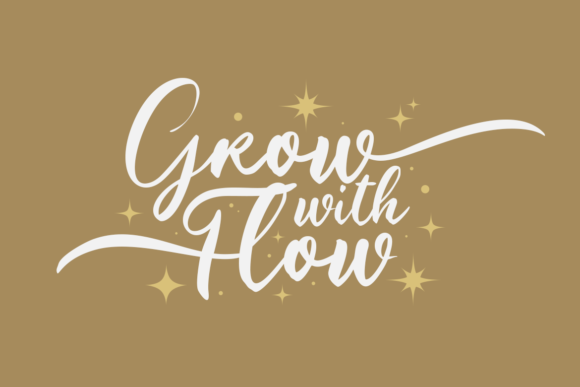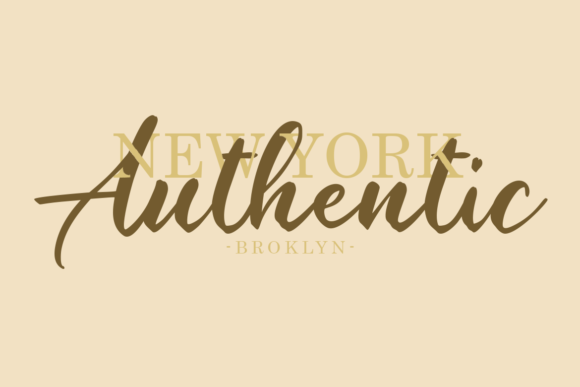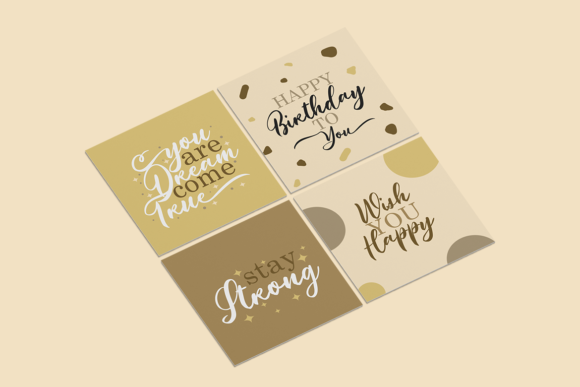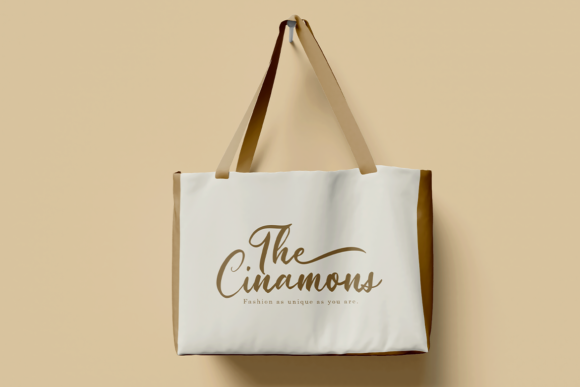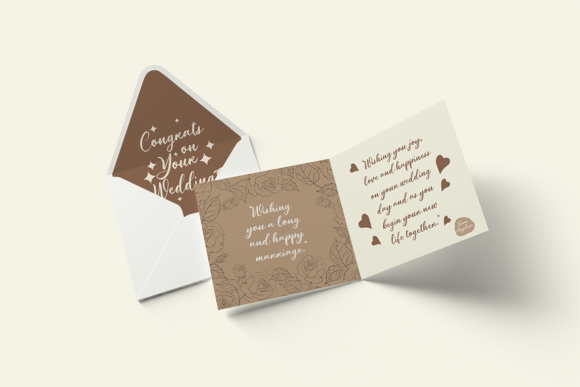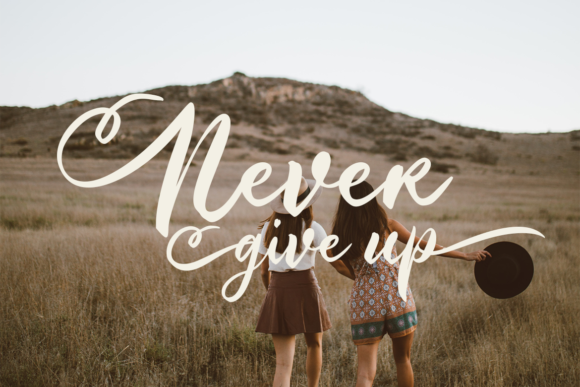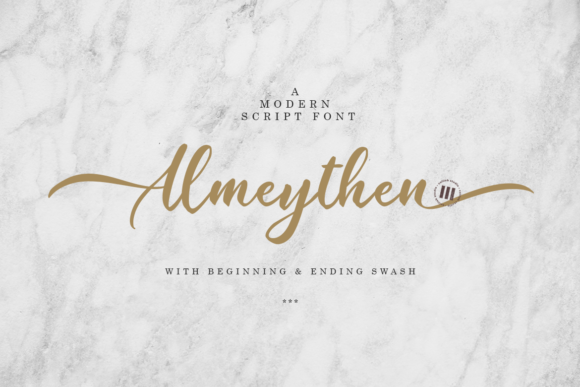
The Elegant Almeythen Font: A Designer’s Delight
I’ll never forget the time I was working on a wedding invitation project, and my client asked for a font that exuded elegance and sophistication. I scoured the internet, trying out font after font, but nothing seemed quite right. That was until I stumbled upon Almeythen, a lovely and delicate script font that instantly captured the essence of the occasion. In this article, I’ll share my experience with Almeythen, its features, and how to make the most of this beautiful font.
An Honest Review of Almeythen
So, what makes Almeythen special? Here are a few things I love about this font:
- ✨ Elegant and refined: Almeythen has a sophisticated feel that’s perfect for high-end designs, wedding invitations, and luxury brands.
- ✅ PUA encoded: This means you can access all the glyphs and swashes with ease, making it simple to customize your designs.
- 💫 Delicate and feminine: Almeythen has a whimsical, hand-drawn feel that’s perfect for designs that require a touch of femininity.
Of course, no font is perfect, and Almeythen has a few quirks:
- ⚠️ Limited use in bold or large sizes: Almeythen is best suited for smaller text sizes or display use. In larger sizes, it can appear a bit thin or wispy.
- 🤔 Not ideal for body text: While Almeythen is beautiful, it’s not the most legible font for long blocks of text. Stick to headings, titles, or short paragraphs.
The Story Behind Almeythen
While the origins of Almeythen are unclear, it’s easy to imagine that it was crafted with love and care by a designer who appreciates the beauty of handwritten scripts. Perhaps the designer was inspired by vintage wedding invitations or elegant calligraphy. Whatever the story, Almeythen is a testament to the power of typography to evoke emotions and create connections.
| What is PUA encoding? | PUA (Private Use Area) encoding allows font creators to include additional glyphs and swashes that can be accessed easily in design software. |